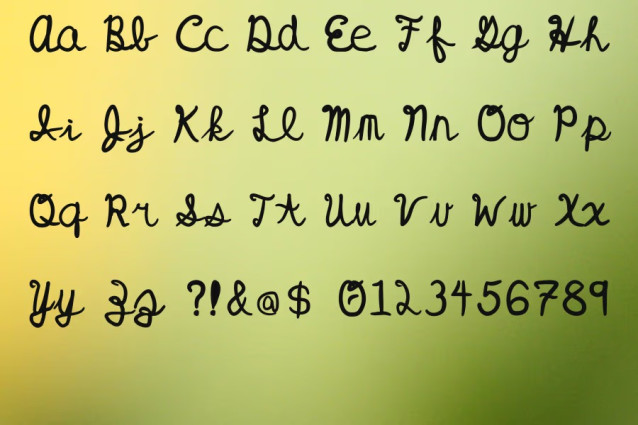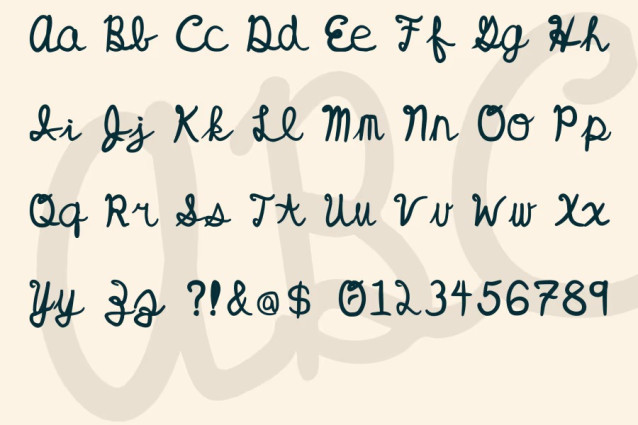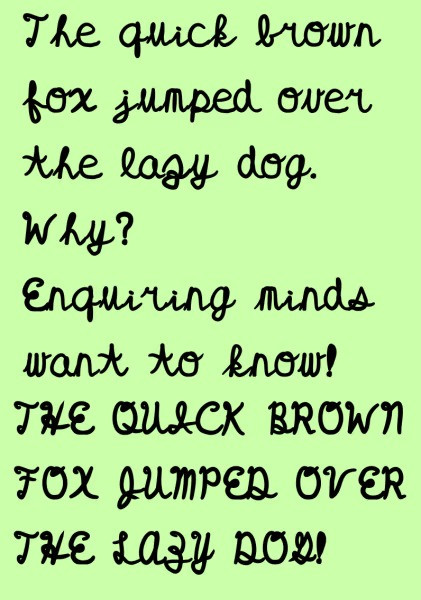
HazesHandwriting2 Font a handwritten font. No fluff, no fancy swirls and stuff. Just the handwriting of a left handed man. This is free for personal use only, if you’re interested to use it for commercial use, you can remit payment of $5 to; https://www.paypal.biz/jphturtlemusicstudio, thanx!
HazesHandwriting2 Font